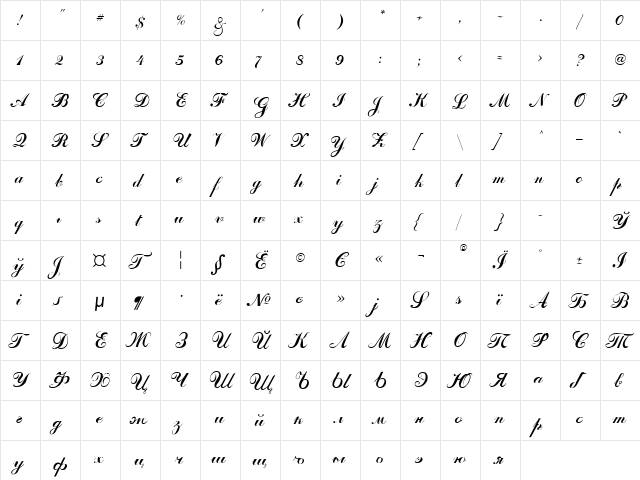
ArtScript Regular Font Preview
ArtScript Regular
Design Context for ArtScript Typeface
ArtScript brings a calligraphic fluidity to the page — its connecting strokes and expressive curves give it an unmistakably human quality.
Font Pairing: Combine ArtScript with a simple geometric sans for maximum contrast — the tension between flowing curves and clean structure is a classic typographic pairing.
Pro Tip: Pair ArtScript with a clean sans-serif for supporting text. The contrast between fluid script and geometric structure creates an elegant typographic hierarchy.